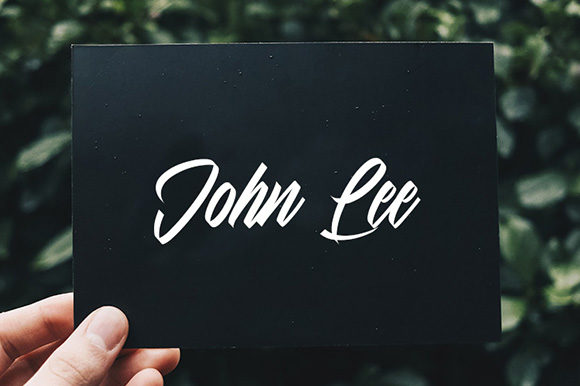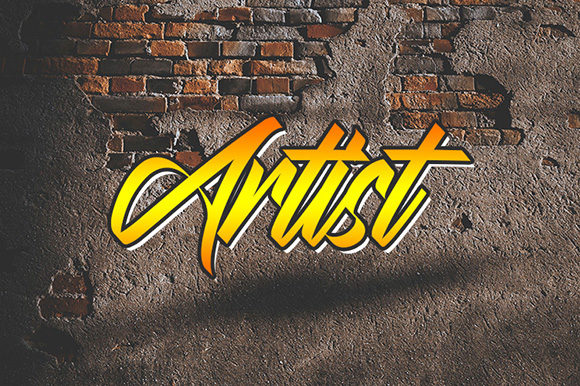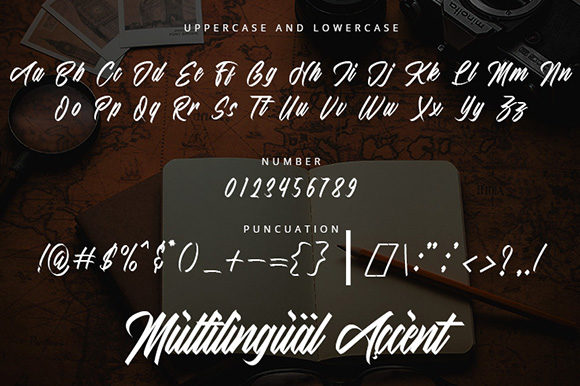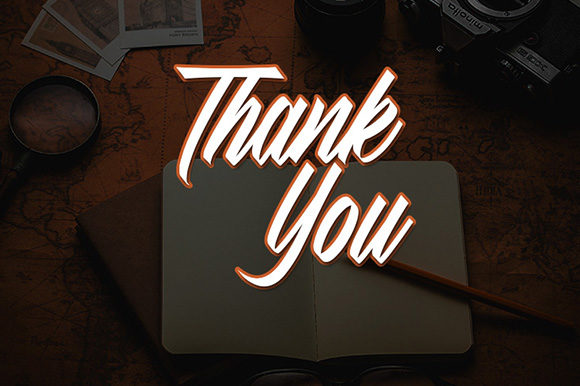
The Mighty Major Font
About The Mighty Major Font
The Mighty Major is a bold and powerful script font with a vintage vibe. Get inspired by its dynamic approach to lettering!